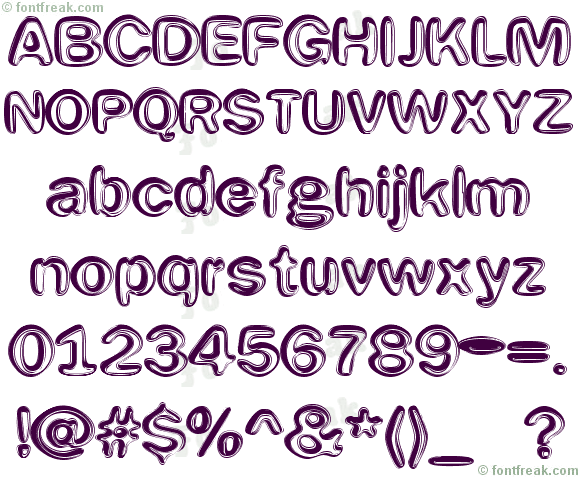
Efentine
About Efentine
Efentine, created by Gemfonts, is a playful display font that captivates with its unique character and charm. This font falls under the decorative category, making it ideal for projects that require a touch of whimsy and creativity. The visual style of Efentine features a rounded, bubbly design with a consistent stroke weight that offers a sense of friendliness and approachability. Its moderate contrast and well-balanced spacing enhance readability while still maintaining a fun aesthetic. The font’s decorative elements, such as soft curves and unique letterforms, add an engaging flair that captures attention.
Efentine is perfect for a variety of creative applications. It shines in contexts like children’s book covers, where its playful nature can attract young readers. Additionally, it can elevate wedding invitations, providing a light-hearted yet elegant touch to the special day. Restaurant menus benefit from the font's inviting style, making dishes feel more approachable and enjoyable. Movie posters can leverage Efentine's distinctive look to create an eye-catching title that stands out amongst competition. Lastly, social media graphics by content creators can greatly benefit from this font, as it adds personality and vibrancy to any visual content.
Targeting graphic designers, small business owners, and content creators, Efentine offers a versatile option for those looking to infuse creativity into their projects. The fact that it is available as a freeware license makes it accessible for anyone eager to enhance their design toolkit without financial constraints. In conclusion, Efentine stands out due to its delightful design and versatility, making it an excellent choice for a wide range of creative projects. For those looking to explore its unique appeal, the Efentine font free download is a fantastic opportunity to add a delightful touch to your designs.